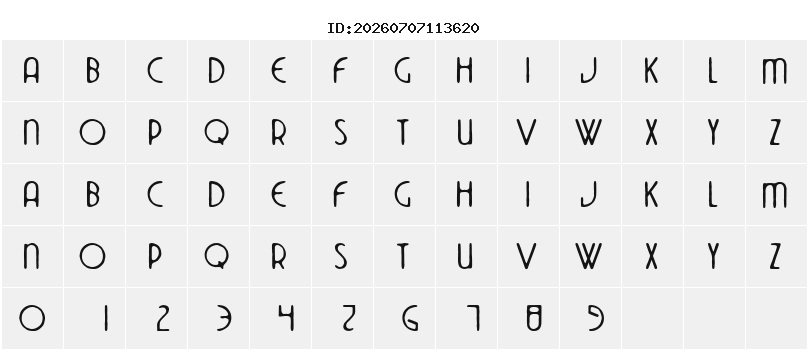
• Font Name: DekoSide
• Full Font Name: DekoSide
About DekoSide.ttf
DekoSide.ttf is a modern, elegant sans-serif font designed for ultimate readability and visual harmony. Perfect for branding, headlines, web design, and print materials.